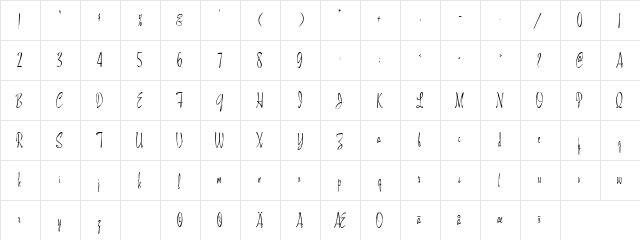
CarmalitaScriptSSK Regular Font Preview
CarmalitaScriptSSK Regular
Design Context for CarmalitaScriptSSK Typeface
CarmalitaScriptSSK flows with the natural rhythm of handwritten lettering, making it ideal for designs that call for warmth and personal expression.